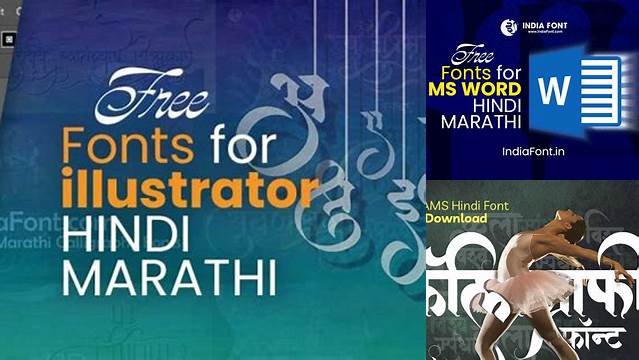
Marathi Fonts Free Download: MS Word 2007 Guide
Hey guys! Are you looking to add a touch of Marathi to your Microsoft Word 2007 documents? You've come to the right place! This comprehensive guide will walk you through everything you need to know about Marathi font free download for MS Word 2007. We'll cover where to find them, how to install them, and even some tips for using them effectively. So, let's dive in and make your documents look amazing!
1. Understanding the Importance of Marathi Fonts
Before we get into the nitty-gritty of downloading and installing fonts, let's talk about why having good Marathi fonts is so important. For those of us who want to communicate in Marathi, whether it's for personal letters, official documents, or creative writing, using the right font is crucial for readability and aesthetics. Imagine writing a beautiful poem in Marathi, but the font makes it look clunky and difficult to read – that's a bummer, right? A well-chosen font can enhance the visual appeal and ensure that your message is conveyed clearly and effectively.
2. Why Choose Marathi Fonts for MS Word 2007?
Now, you might be wondering, “Why specifically for MS Word 2007?” Well, while MS Word has evolved over the years, many people still use the 2007 version. It's a classic, and it gets the job done! However, the default font options might not always include the best Marathi fonts. So, if you want to create documents that stand out and are easy to read in Marathi, you'll need to explore additional font options. Using proper Marathi fonts ensures your document displays correctly for everyone, especially those reading on older systems or with different software configurations. Let's get those perfect fonts for your MS Word 2007!
3. Exploring Different Types of Marathi Fonts
There's a whole world of Marathi fonts out there, each with its own unique style and personality. From traditional fonts that evoke a sense of history and culture to modern fonts that are sleek and contemporary, the possibilities are endless. Some popular categories include:
- Traditional Fonts: These fonts often mimic the elegant calligraphy of handwritten Marathi scripts.
- Modern Fonts: These fonts are clean, minimalist, and perfect for professional documents.
- Decorative Fonts: These fonts are more playful and expressive, ideal for creative projects or headings.
Knowing the different types can help you choose the perfect font for your specific needs. For a formal letter, you might opt for a traditional or modern font, while a festive invitation might call for something more decorative. It's all about finding the right fit!
5. Step-by-Step Guide: Downloading Marathi Fonts
Now that you know where to find Marathi fonts, let's go through the download process step-by-step. It's super easy, I promise!
- Visit a reputable font website (like the ones we mentioned above).
- Search for “Marathi fonts” or browse the font categories.
- Preview the fonts to see how they look.
- Click the “Download” button for the font you want.
- Save the font file (usually a .ttf or .otf file) to a folder on your computer.
That’s it! You’ve successfully downloaded a Marathi font. Now, let’s get it installed so you can use it in MS Word 2007.
6. Installing Marathi Fonts on Windows for MS Word 2007
Installing your new Marathi fonts on Windows is a breeze. Here’s how to do it:
- Locate the downloaded font file (the .ttf or .otf file).
- Right-click on the font file and select “Install.”
- Alternatively, you can copy the font file and paste it into the Fonts folder (usually located at
C:\Windows\Fonts).
Windows will automatically install the font, and it should now be available in MS Word 2007. If you have Word open, you might need to restart it for the font to appear in the font list.
7. Troubleshooting Font Installation Issues
Sometimes, things don’t go quite as planned. If you’re having trouble installing your Marathi fonts, don’t panic! Here are a few common issues and how to fix them:
- Font not appearing in Word: Try restarting MS Word 2007. If that doesn't work, restart your computer.
30. Final Thoughts on Marathi Font Free Download for MS Word 2007
So, there you have it – a complete guide to Marathi font free download for MS Word 2007! We've covered everything from finding the best fonts to installing them and using them effectively. Remember, choosing the right font can make a big difference in the readability and visual appeal of your documents. By following these tips and exploring the resources we've mentioned, you can create stunning Marathi documents that you'll be proud to share. Happy writing! Strong text here.